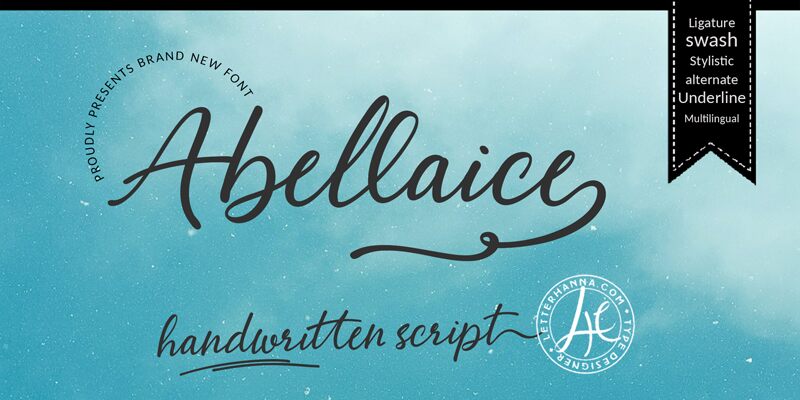
Abellaice font is a brilliant handwritten typeface designed by Rinaldo Hasibuan of Letterhanna Type Foundry.
This font is also limited, without some swash, alternate, and some numbers or punctuations.